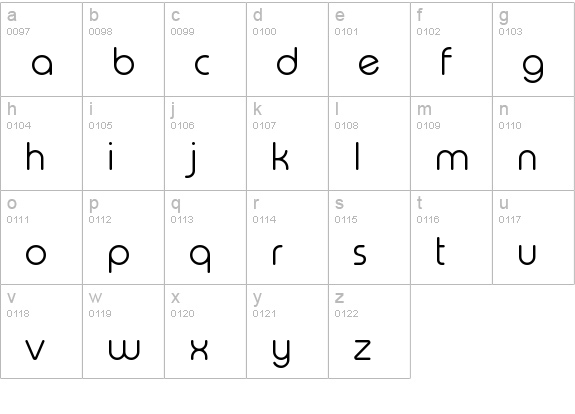
Typo Round Light Demo is a refined, elegant variant in the Typo typeface family \xE2\x80\x94 well suited to elegant body text, refined sub-headings, and luxury branding.
Typo Round Light Demo font is a modern and elegant typeface that captures attention with its clean and rounded letterforms. This font is perfect for adding a touch of sophistication to any design project, whether it's a logo, branding materials, or a website. With its light weight and smooth curves, Typo Round Light Demo exudes a sense of simplicity and minimalism. It is versatile and can be used in both professional and creative contexts, making it a go-to choice for designers and typographers alike. One of the best things about Typo Round Light Demo is that it is free! Yes, you read that right. This font is freely available to download at FontsMarket.com. Now you can enhance your designs without breaking the bank. Whether you're a seasoned designer or just starting out, Typo Round Light Demo font is a valuable addition to your font library. Its clean and legible appearance ensures readability across various mediums, making it a reliable choice for any project. So why wait? Download Typo Round Light Demo font today from FontsMarket.com and elevate your designs with this versatile, elegant, and free typeface.